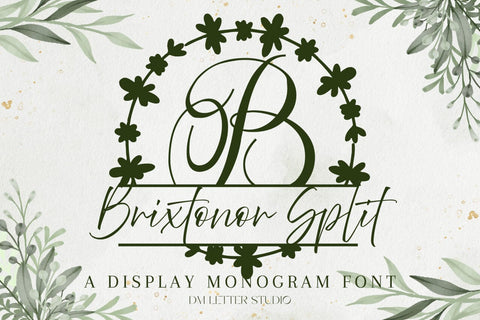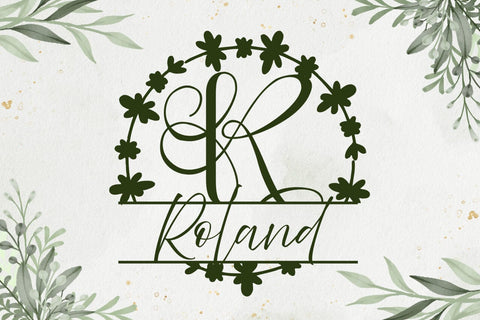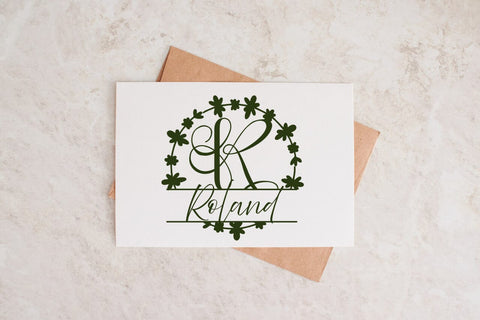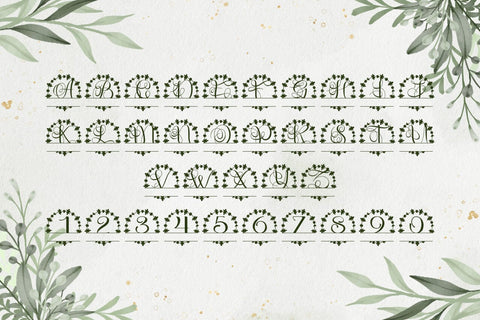
Brixtonor Split Monogram Font
Meet Brixtonor Split Monogram Font
Brixtonor Split Monogram Font turns any initial into a bold, name-ready emblem in seconds. Calm, confident letterforms provide modern clarity, while a precise horizontal split creates natural space for names, dates, or short words. Because spacing stays even and counters remain open, your designs look polished on tiny tags, tumblers, ornaments, menus, and statement wall art. Pair it with a clean sans or a light script and every layout stays readable and premium.
Where this split monogram font shines
Set one hero initial and place the family name inside the split for instant personalization. Next, try couple names for engagement gifts, venue names for signage, or short words like Home, Welcome, and Love for seasonal décor. Since the proportions favor clarity, files scale smoothly for Cricut, Silhouette, Glowforge, and laser projects. As a result, batch customization becomes fast and consistent across product lines.
Design tips for Brixtonor Split Monogram
Keep the hero initial large and let white space breathe. Place the split at center or slightly low for a steady baseline. Choose a simple supporting font inside the split to protect legibility on small items. Because the style is poised and modern, metallic foils, linen textures, and natural woods add instant value. Keep names concise so the composition stays balanced and clear at thumbnail size.
Uppercase alphabet optimized for split monograms
Matching lowercase, numbers, punctuation